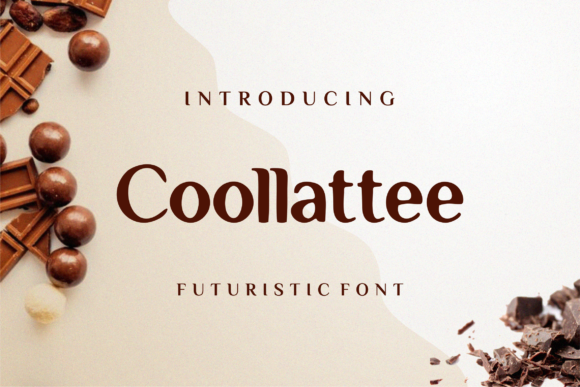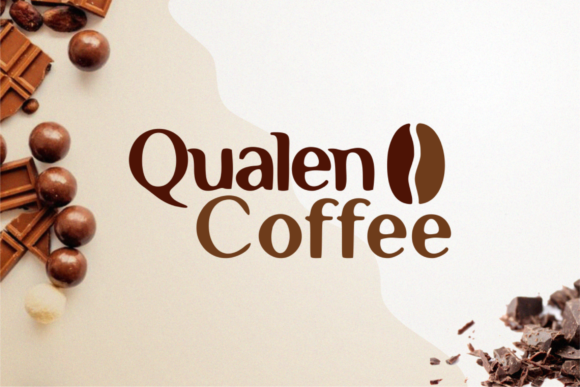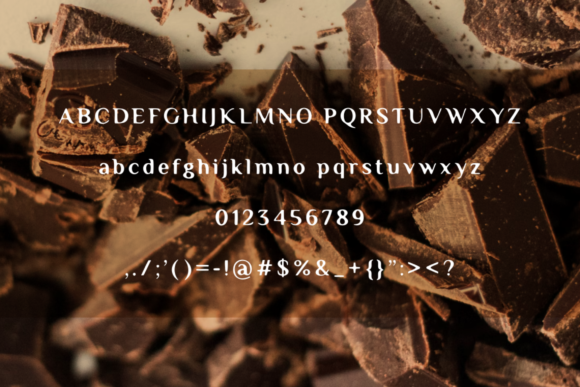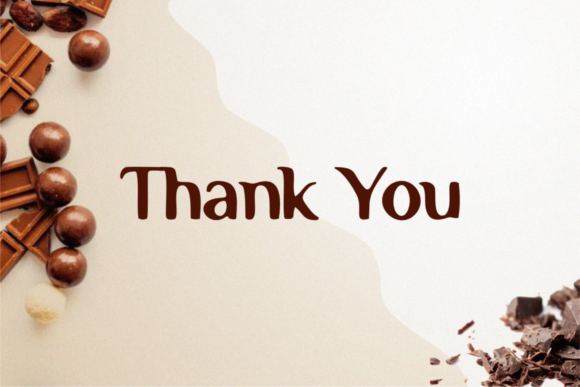
Coollattee: A Bold and Authentic Slab Serif Font
Coollattee is a distinctive slab serif font that combines boldness with authenticity. This modern typeface is designed to make any design stand out, making it perfect for various branding projects.
Key Features of Coollattee
- Bold Design: Features strong, eye-catching letterforms that command attention.
- Authentic Style: Offers a genuine and unique look that sets it apart from typical fonts.
- Slab Serif Structure: Incorporates the characteristic thick, rectangular serifs typical of slab serif fonts.
- Modern Aesthetic: Provides a contemporary look suitable for current design trends.
- Versatile Application: Suitable for a wide range of branding projects, from logos to t-shirt printing.
Ideal Uses for Coollattee
Coollattee’s unique characteristics make it particularly well-suited for:
- Logo design and branding
- T-shirt printing and apparel design
- Export branding and packaging
- Headlines and titles
- Poster and advertisement layouts
- Social media graphics and content
When incorporating Coollattee into your designs, consider these tips:
- Use for headlines or short blocks of text to maximize its bold and authentic impact
- Experiment with different sizes to highlight the font’s unique details
- Consider pairing with simpler sans-serif fonts for body text to create contrast
- Take advantage of its modern look for contemporary branding projects
Coollattee is an excellent choice for designers looking to add a bold and authentic slab serif font to their typographic toolkit. Its ability to make any design look outstanding sets it apart in the world of typography. Whether you’re working on logo designs for modern brands, creating layouts for t-shirt prints, or developing content that requires a strong visual presence, Coollattee offers the perfect blend of boldness and authenticity.
Furthermore, Coollattee’s versatility allows it to shine in various contexts. From vintage-inspired designs with a modern twist to more playful layouts that need a touch of boldness, this font can elevate your projects. Its authentic style works particularly well in designs that require a strong and impactful mood.
In conclusion, Coollattee is a font that lives up to its name, adding a cool and striking flair to your designs. Its ability to work well in both bold, modern projects and more elaborate layouts showcases its flexibility. For those looking to add a touch of contemporary boldness to their work, Coollattee can even enhance traditional designs with its unique, authentic twist, ensuring your branding projects always stand out and impress.